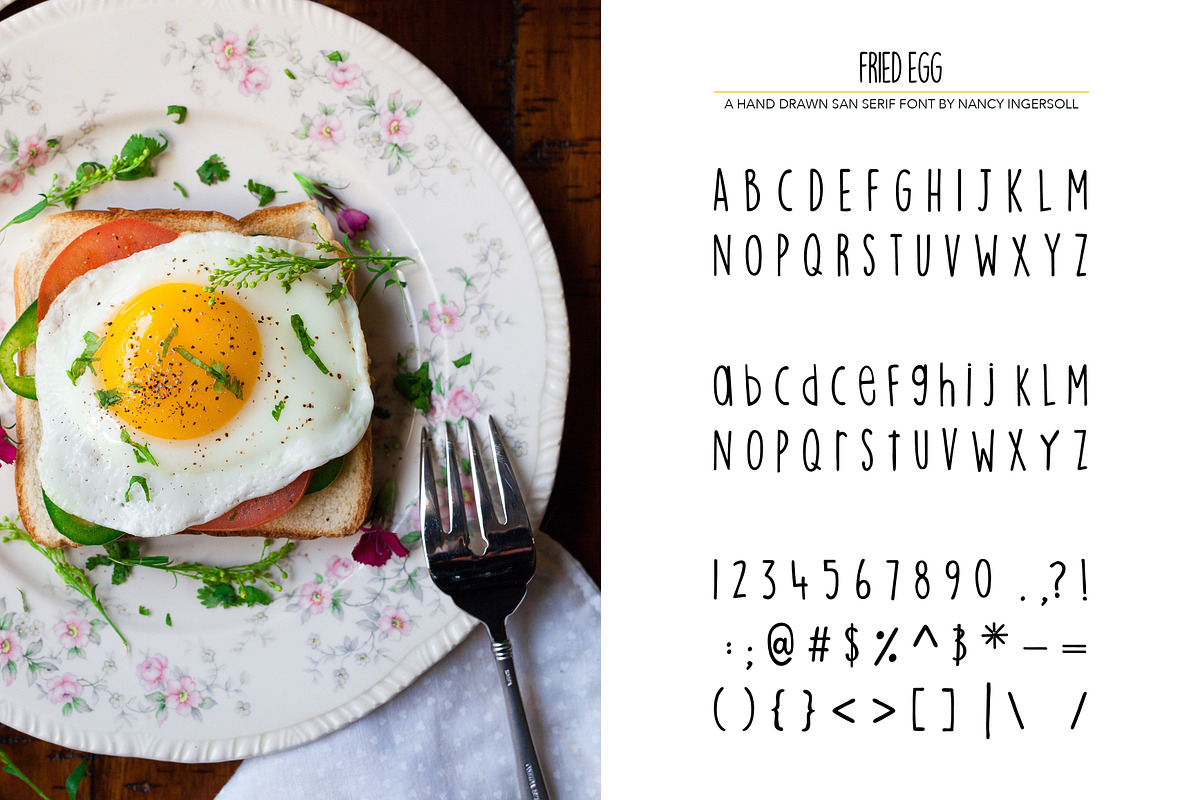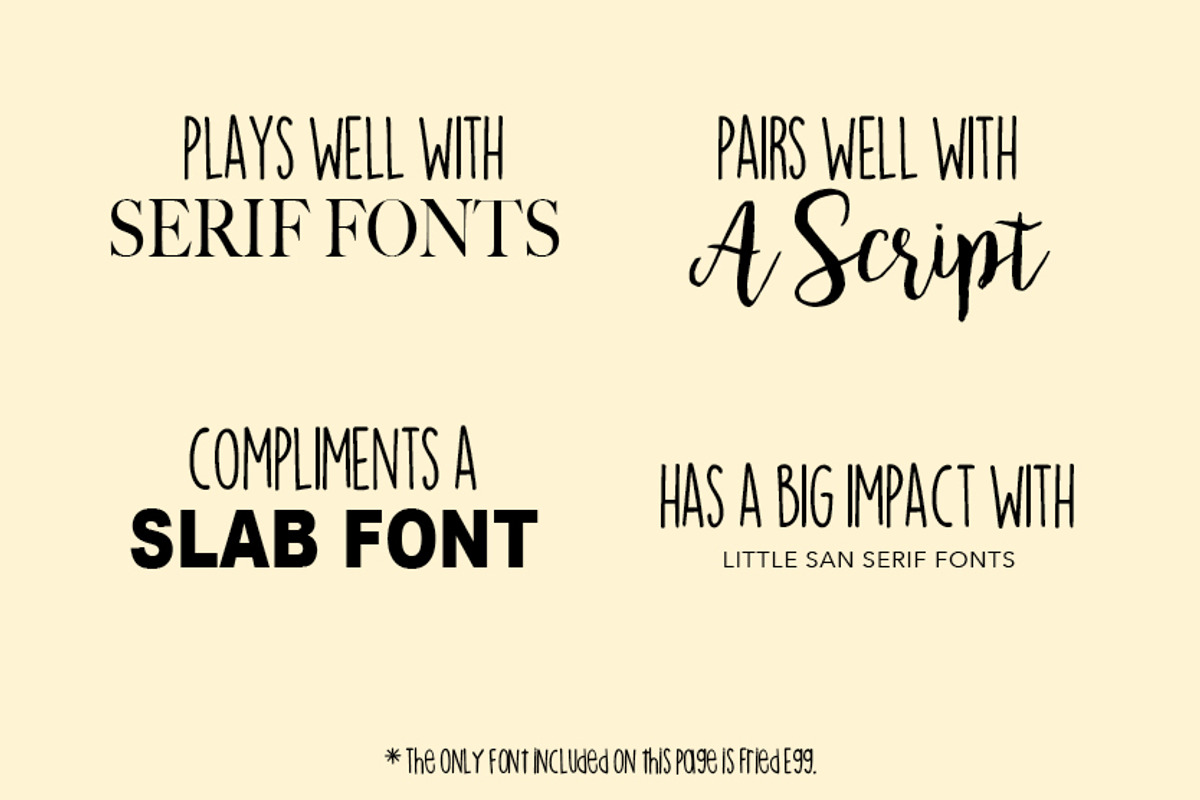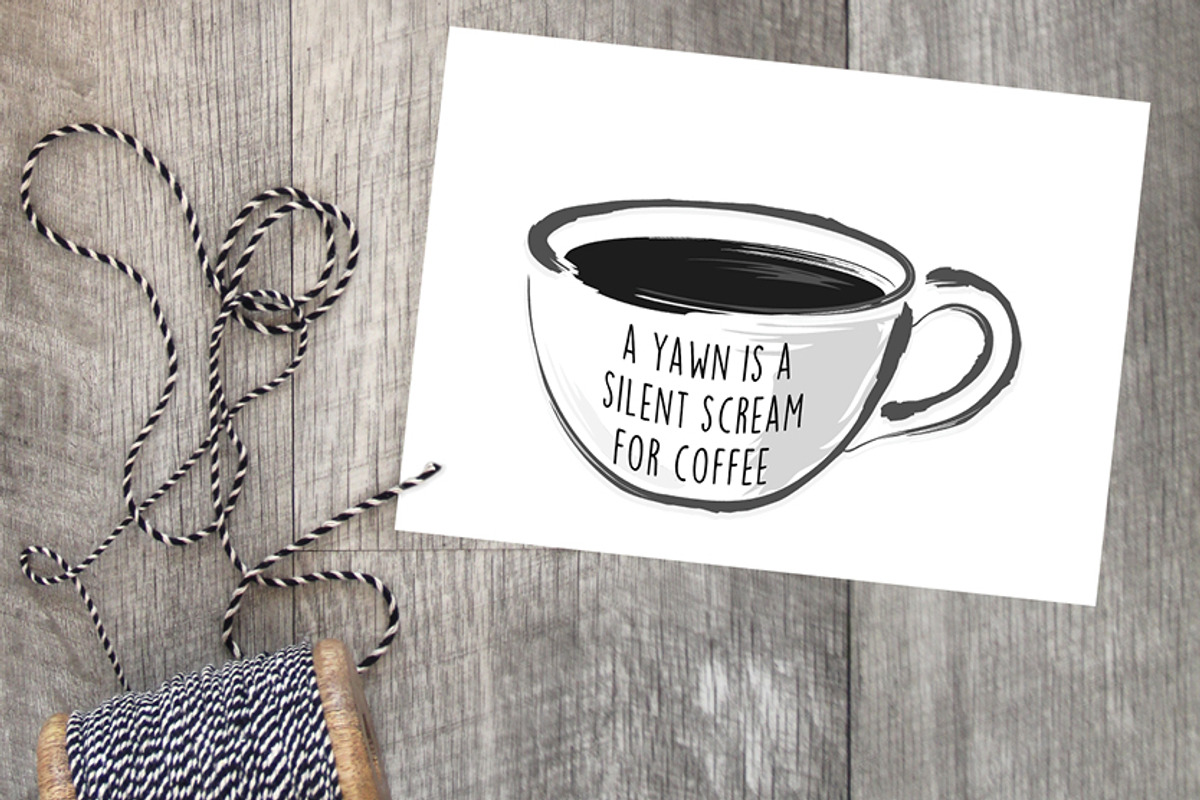
Fried Egg Font
Fried Egg Font by Nancy Ingersoll is a font selected for branding, posters, packaging, typography.
- Also included are numerals and symbols so that you can get the job done.
- It’s a nearly all-caps font with alternates for some of the lowercase letters to express its playful nature.
Why Fried Egg Font is worth a look
Fried Egg Font by Nancy Ingersoll fits naturally into Branding, posters, packaging, typography.